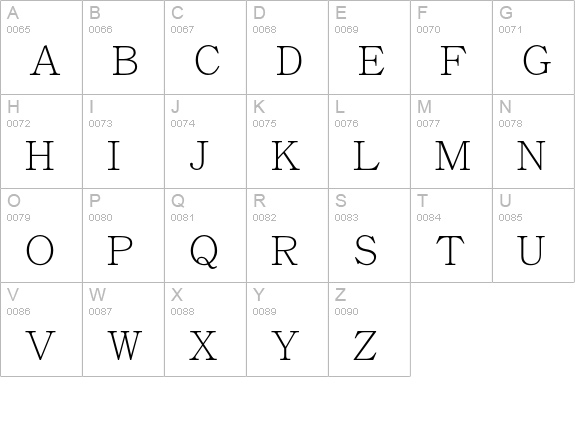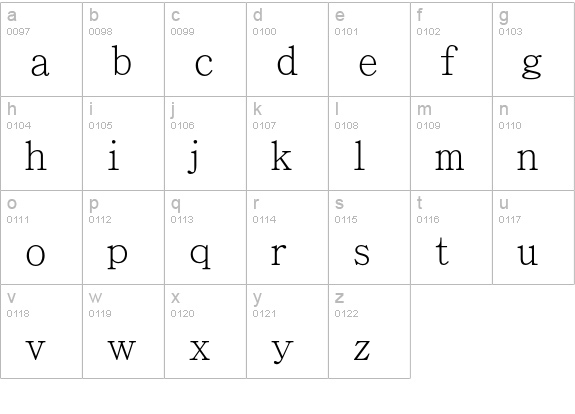
Adobe Ming Std L font is a beautiful and elegant typeface that embodies the essence of traditional Chinese calligraphy with a modern twist. Its graceful strokes and intricate details make it perfect for adding a touch of sophistication to any design project. The font's versatility allows it to be used in a wide range of applications, from branding to editorial design. What sets Adobe Ming Std L font apart is that it is available for free download at FontsMarket.com, making it easily accessible to designers and creators worldwide. Whether you're working on a print project or a digital design, this font will enhance your work with its timeless appeal and timeless elegance. Elevate your typography game with Adobe Ming Std L font and make your designs stand out from the rest.